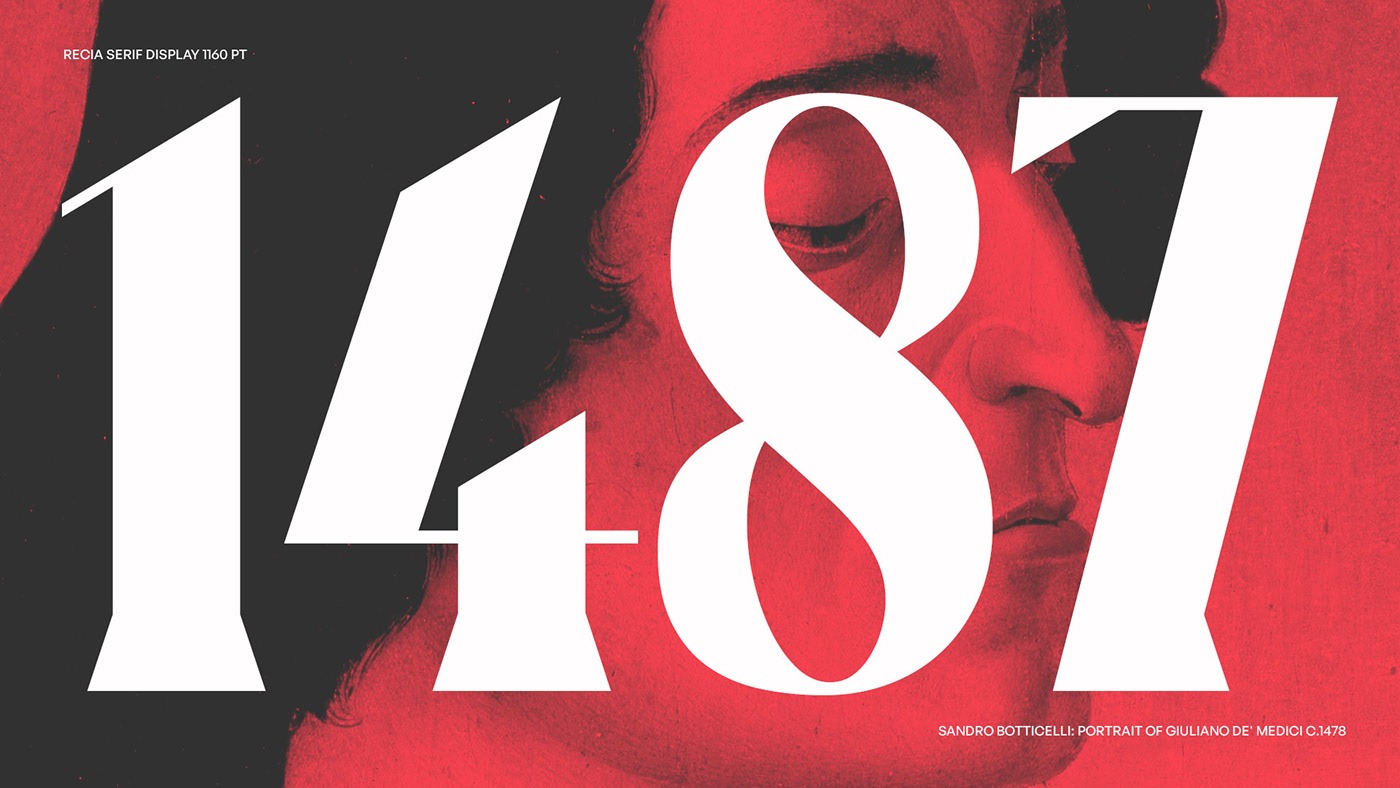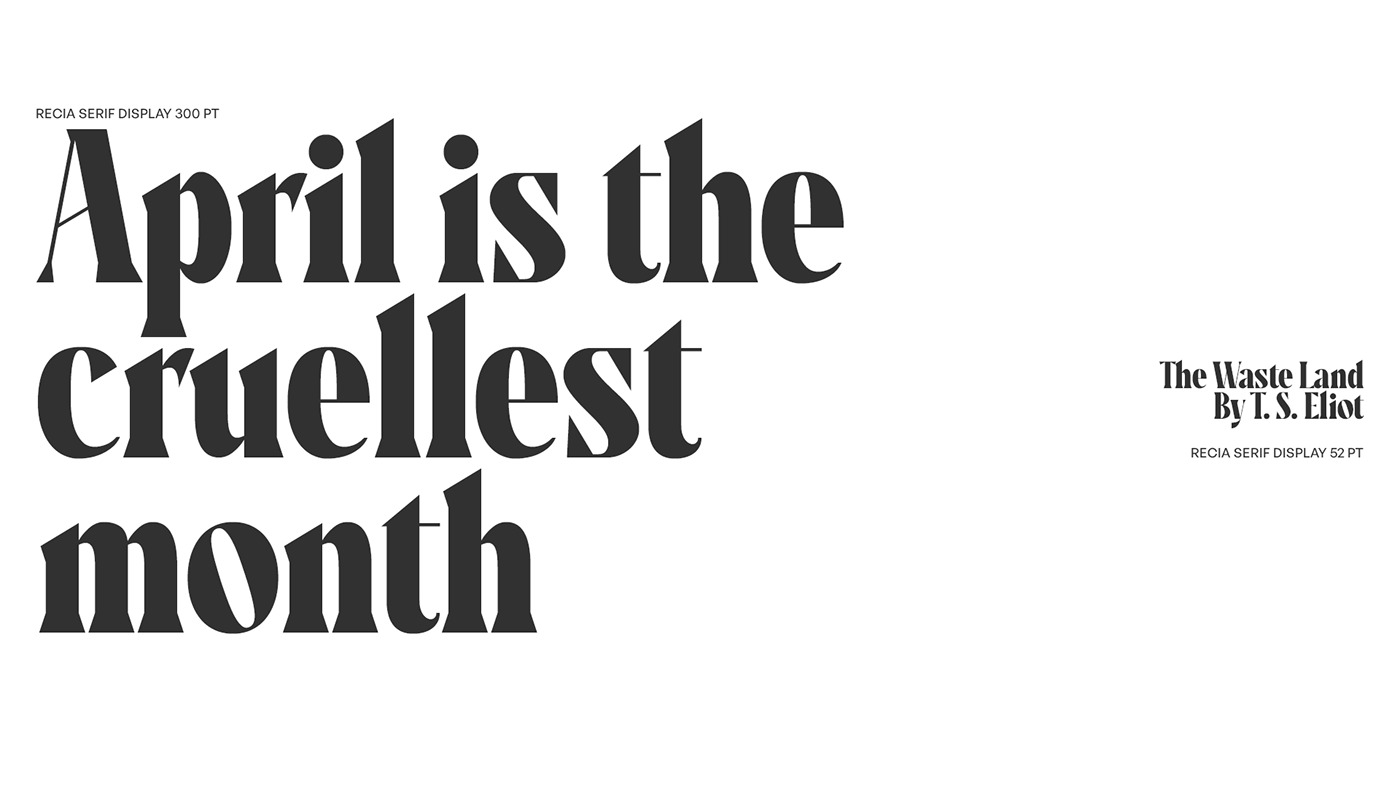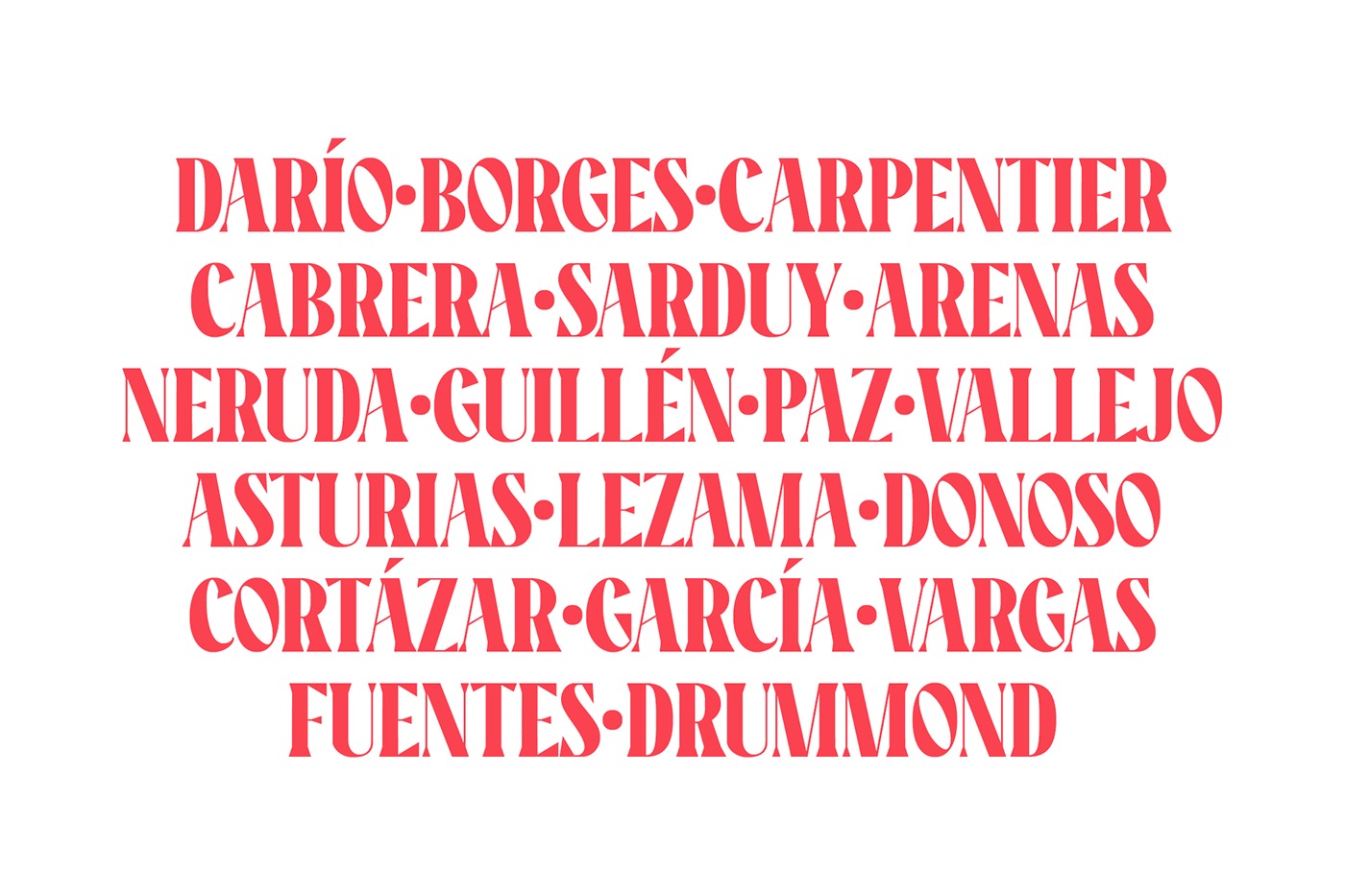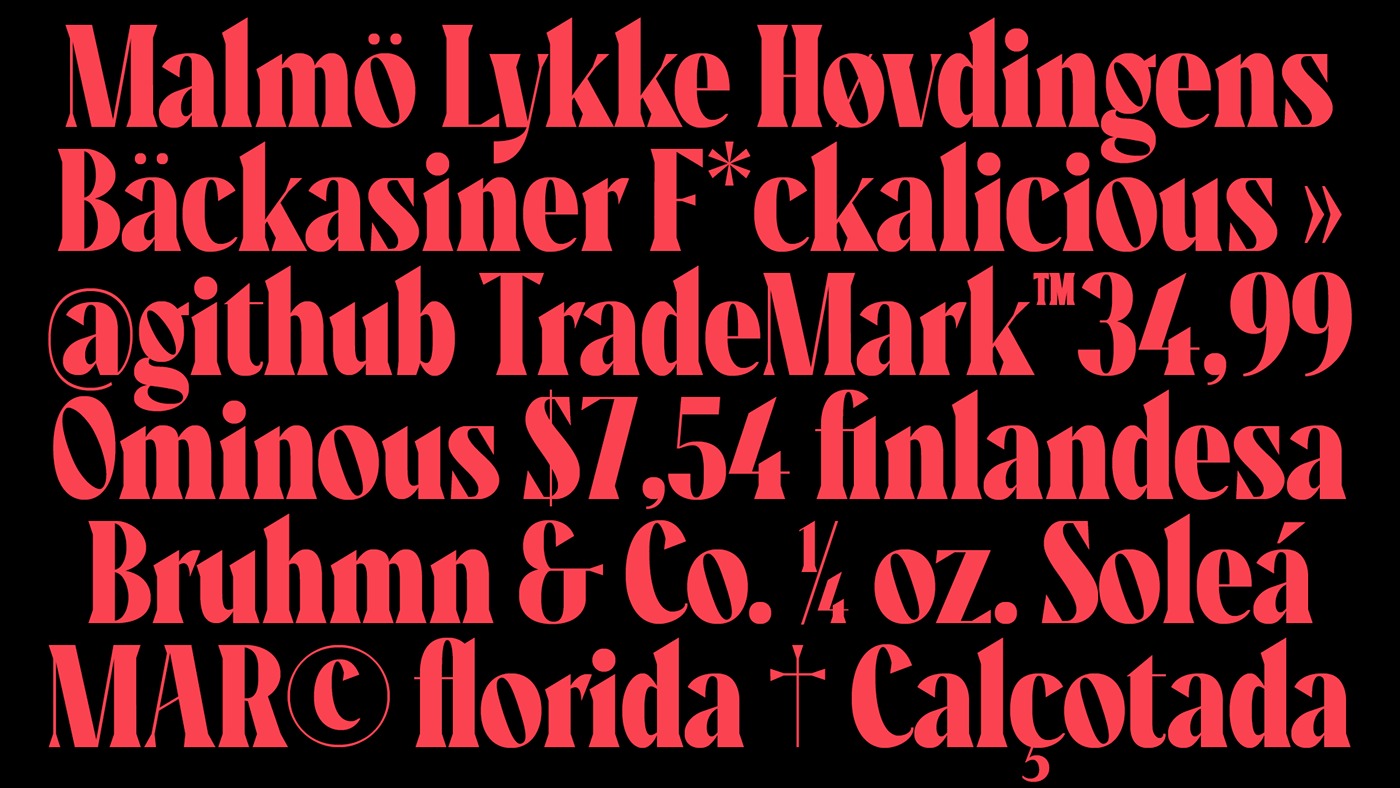
Recia Serif Display Font
This is a bold serif font inspired by the old style serifs of 19th century print labels that have a classic touch in this modern era. Carefully crafted with lowercase and uppercase to complement this font as well as using variable bold and thin shapes to give a sense of beauty and strength to the letterforms
Recia Serif Display Font is great for designing posters, labels, sign paintings and other media to enhance your visual appearance